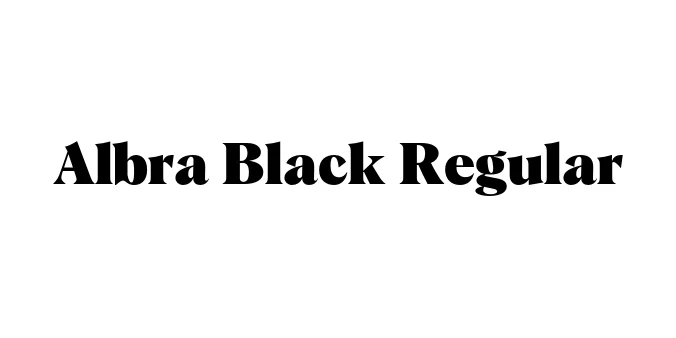
Albra Black Regular
Designed by BumbumType
Albra Black Regular is a sophisticated high-contrast serif typeface designed by BumbumType. It serves as a flagship weight within the broader Albra family, merging the timeless elegance of classic book typography with the sharp, clean lines of contemporary design. This specific weight is characterized by its dramatic contrast between thick and thin strokes, creating a visual rhythm that is both bold and graceful. It is particularly effective for designers who wish to convey a sense of luxury, authority, and artistic flair in their creative projects.
The construction of Albra Black emphasizes clarity and character, featuring refined serifs and balanced proportions that maintain legibility even at large display sizes. Its vintage-inspired yet forward-thinking aesthetic makes it a versatile tool for high-end editorial layouts, fashion branding, and modern digital interfaces. As part of the Albra collection, the Black Regular style provides a commanding presence that works harmoniously with its lighter counterparts, offering a complete typographic solution for premium visual identities.
Albra Black Regular Best Uses
Ideal for luxury brand logos and premium visual identities.
Perfect for high-impact magazine headlines and mastheads.
Great for hero sections and large display text on modern websites.
Excellent for upscale product packaging and labels.